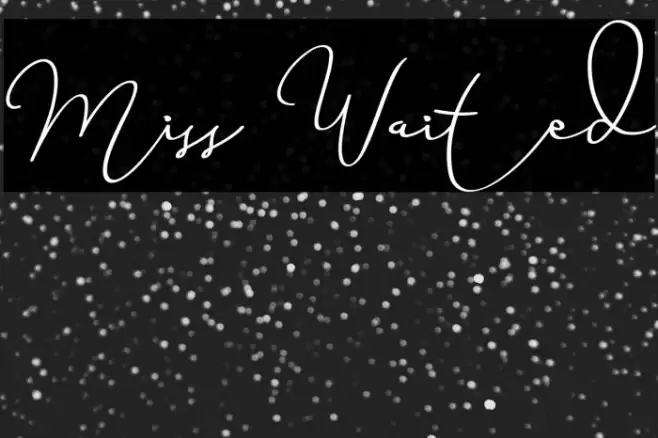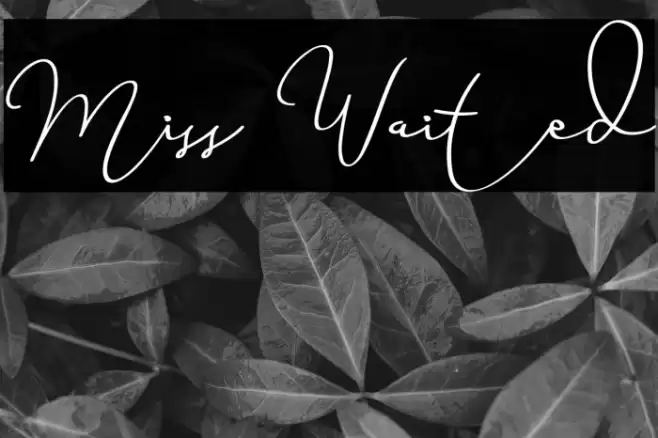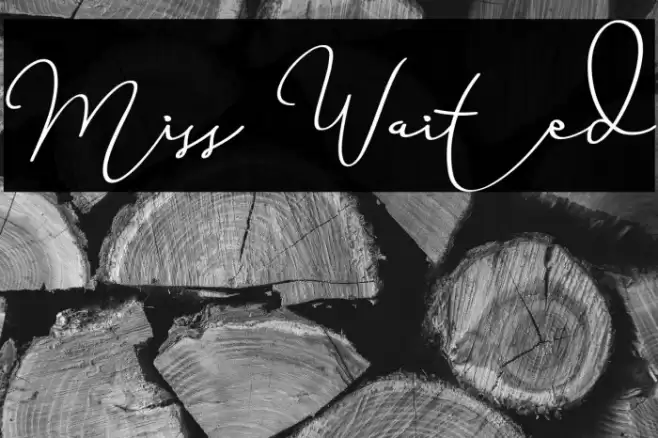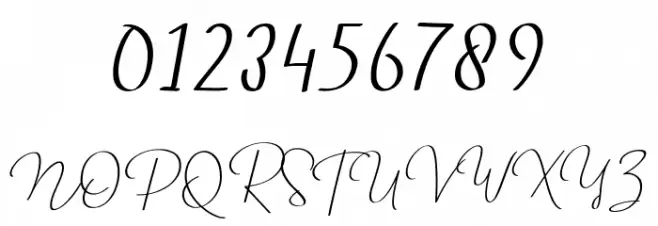
Miss Waited Font
Miss Waited Description
This elegant script font features a delicate and flowing design, characterized by its graceful curves and smooth connections between letters. The uppercase letters are slightly more structured, maintaining a sense of sophistication, while the lowercase letters exhibit a more fluid and cursive style. The numerals are clear and easy to read, complementing the overall aesthetic. The font's thin strokes and subtle variations in line thickness add a touch of refinement, making it suitable for formal and decorative purposes.
A graceful and elegant script font with flowing, connected letters from Regular fonts.
- Proposed Projects: Ideal for wedding invitations, elegant branding, personalized stationery, and decorative headings.
- Overall Style: Elegant, Decorative
- Use Case: Headlines, Invitations, Branding